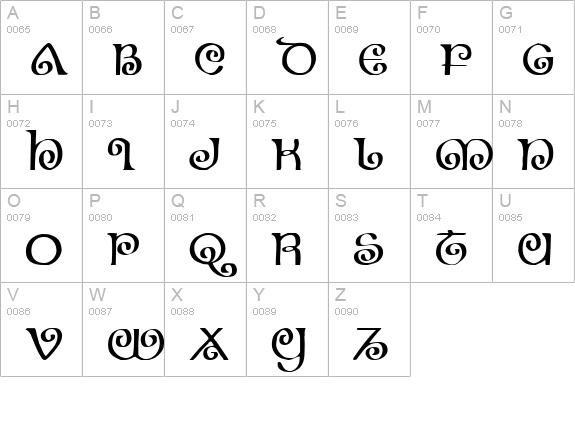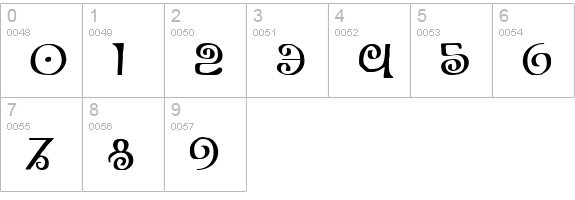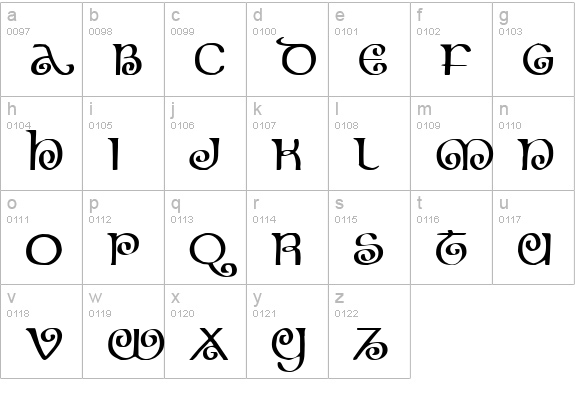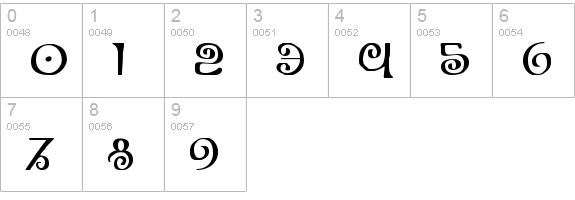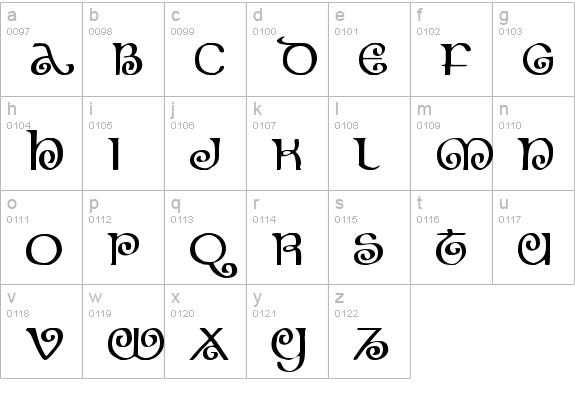
The Shire font embodies the quaint charm and whimsical elegance of a tranquil countryside. With its flowing lines and graceful curves, The Shire font brings a touch of nostalgia and warmth to any design project. Whether you are creating invitations for a rustic wedding, designing a cozy café menu, or crafting a charming logo for a small boutique, The Shire font is sure to add a touch of magic to your work. Best of all, The Shire font is available for free download at FontsMarket.com. This means that you can easily access this beautiful font and start using it in your projects right away, without any cost. So why wait? Bring a touch of the countryside into your designs with The Shire font today!